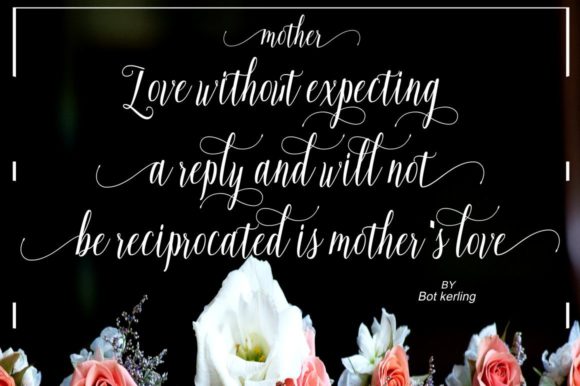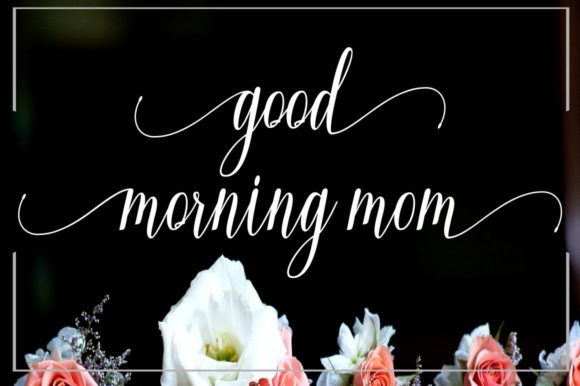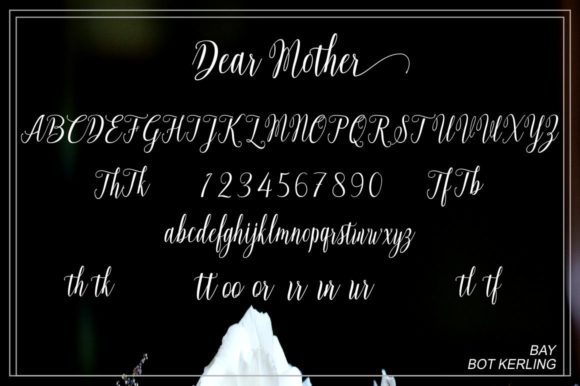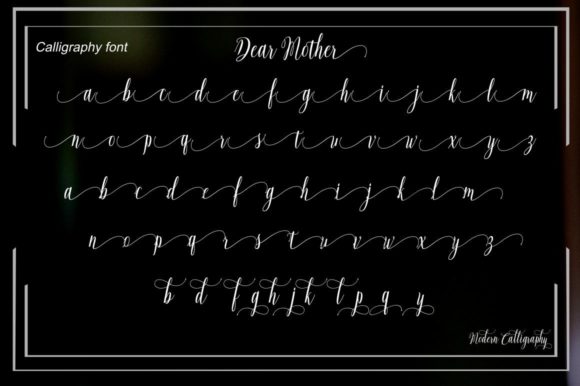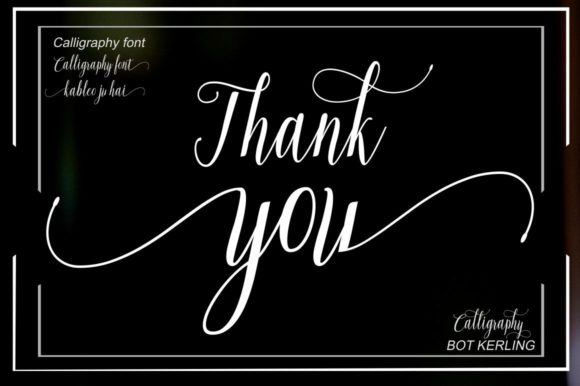
Introducing Dear Mother Font: Elevate Your Designs with Elegance
Are you on the hunt for a font that adds a touch of luxury and sophistication to your design projects? Look no further than Dear Mother Font, a beautiful and light handwritten font that is sure to make your creations stand out. With its unique feel and stunning impact, this font is perfect for designers and crafters who want to add a bit of elegance to their work.
What Makes Dear Mother Font So Special?
Dear Mother Font is a one-of-a-kind font that boasts a distinctive and stylish appearance. Its light and airy feel makes it perfect for use in a variety of design projects, from wedding invitations and branding materials to packaging and digital media. The font’s unique feel is sure to capture the attention of your audience and leave a lasting impression.
One of the best things about Dear Mother Font is that it is PUA (Private Use Area) encoded. This means that you can access all of the amazing glyphs and ligatures with ease, giving you even more creative freedom to experiment with different design elements. With PUA encoding, you can easily insert special characters and swashes into your text, taking your designs to the next level.
Dear Mother Font is incredibly versatile and can be used in a wide range of design projects. Whether you’re creating:
- Packaging for products
- Digital media, such as social media graphics and blog posts
This font is sure to add a touch of luxury and sophistication to your designs. Its elegant appearance makes it perfect for projects where you want to create a high-end look and feel.
Why Choose Dear Mother Font?
There are many fonts on the market that claim to offer a unique and stylish appearance, but Dear Mother Font stands out from the crowd. Here are just a few reasons why:
- Unique feel: Dear Mother Font has a distinctive and stylish appearance that is sure to set your designs apart.
- Elegant and sophisticated: This font is perfect for designers and crafters who want to add a touch of luxury to their work.
- PUA encoded: With PUA encoding, you can easily access all of the amazing glyphs and ligatures.
- Versatile: Dear Mother Font can be used in a wide range of design projects.
Tips for Using Dear Mother Font
To get the most out of Dear Mother Font, here are a few tips to keep in mind:
- Use it sparingly: Because Dear Mother Font is so elegant and sophisticated, it’s best to use it sparingly. Use it as a headline font or for emphasis, and pair it with a simpler font for body text.
- Experiment with glyphs and ligatures: With PUA encoding, you can easily access all of the amazing glyphs and ligatures. Experiment with different combinations to add visual interest to your designs.
- Pair it with other fonts: Dear Mother Font pairs well with a variety of other fonts. Try pairing it with a bold sans-serif font for a striking contrast.